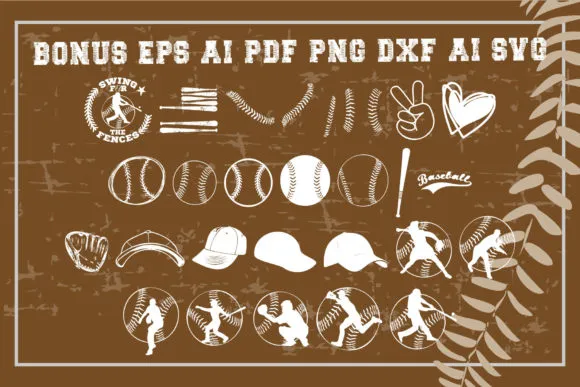
Grunge Baseball Font Download
Grunge Baseball Font is a strong and self-assured show text style. Sharp looking and cool, this text style will genuinely move every one of your works.
Utilize this text style for every one of your games related plans and investigate its vast conceivable outcomes.